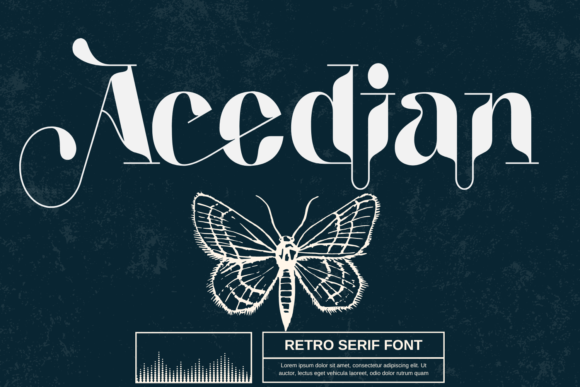
Unleash the timeless charm of the retro era with Acedian, an elegant and sophisticated serif typeface created by 177Studio. Its delicate serifs and intricate details evoke a sense of luxury and refinement, making it the perfect choice for high-end branding, editorial layouts, and book covers.
Acedian's vintage aesthetic adds a touch of nostalgia and class to any design project. Imagine the allure of classic novels, the elegance of vintage fashion, and the beauty of bygone eras, all captured in the curves and strokes of this remarkable font.
With Acedian, you'll captivate your audience with the allure of the past, while simultaneously embracing the freshness and innovation of the present. This font is a versatile masterpiece, equally suited for a wide range of creative endeavors. From logos that exude timeless elegance to invitations that ooze sophistication, Acedian is your key to unlocking a world of design possibilities.
Its PUA encoding makes accessing all the delightful glyphs and swashes effortless, adding an extra layer of creativity and customization to your projects. Let Acedian be your gateway to design greatness, where the past and present harmoniously blend to create something truly exceptional.